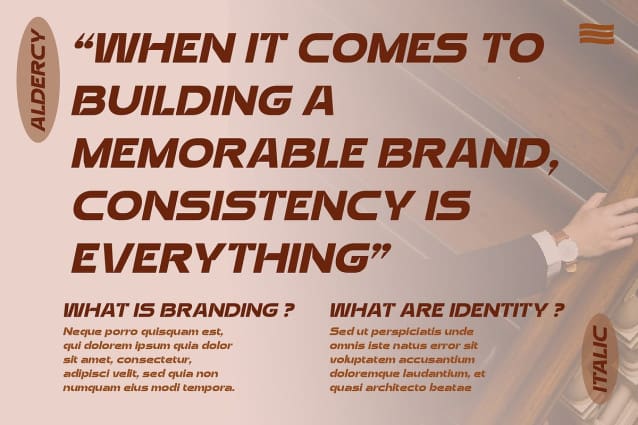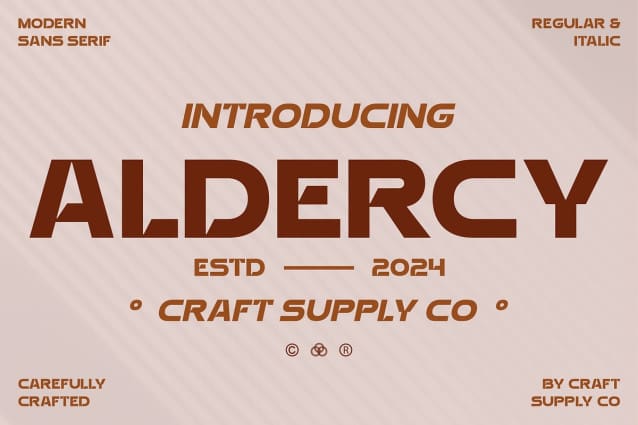
Aldercy Font
Aldercy Font: Bold Modern Sans Serif. Modern and Striking Design Aldercy Font boasts a bold modern sans serif design that exudes confidence and sophistication. Its clean lines and strong presence make it perfect for contemporary projects.
Versatile Application This font offers versatility in its application, suitable for a wide range of design projects. From branding and advertising to web design and packaging, This font adds impact and clarity.
Bold Statement With its bold weight and modern aesthetic, This font makes a bold statement in any context. Whether used for headlines, titles, or body text, it commands attention and delivers a strong visual impact.
Sleek and Stylish The sleek and stylish appearance of This font makes it a popular choice among designers. Its simplicity and clarity ensure readability while adding a touch of sophistication to any design.
Boldness Redefined This font is a bold modern sans serif font that combines sleekness with strength, making it an ideal choice for designers looking to make a statement. Its versatility and striking design make it suitable for a wide range of design applications, ensuring that your message stands out with clarity and style.